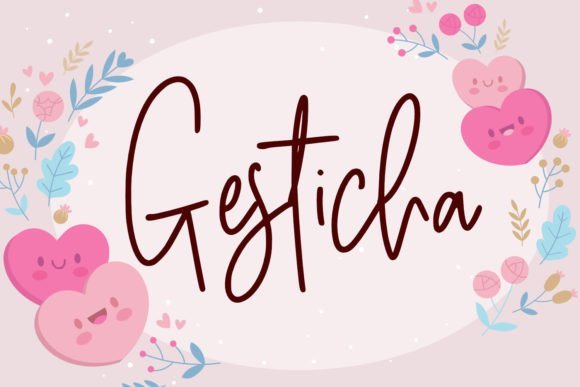
Introduction to Gesticha Font
Gesticha is a quirky handwritten font, described by a casual and relaxed touch, perfect for your favorite projects.
This dazzling font will turn any creative idea into a standout .
Key Features of Gesticha Font
Why Choose Gesticha Font?
Gesticha Font offers exceptional quality and versatility, making it a valuable addition to your design toolkit. Whether you’re creating for personal projects or commercial use, Gesticha Font delivers professional results.